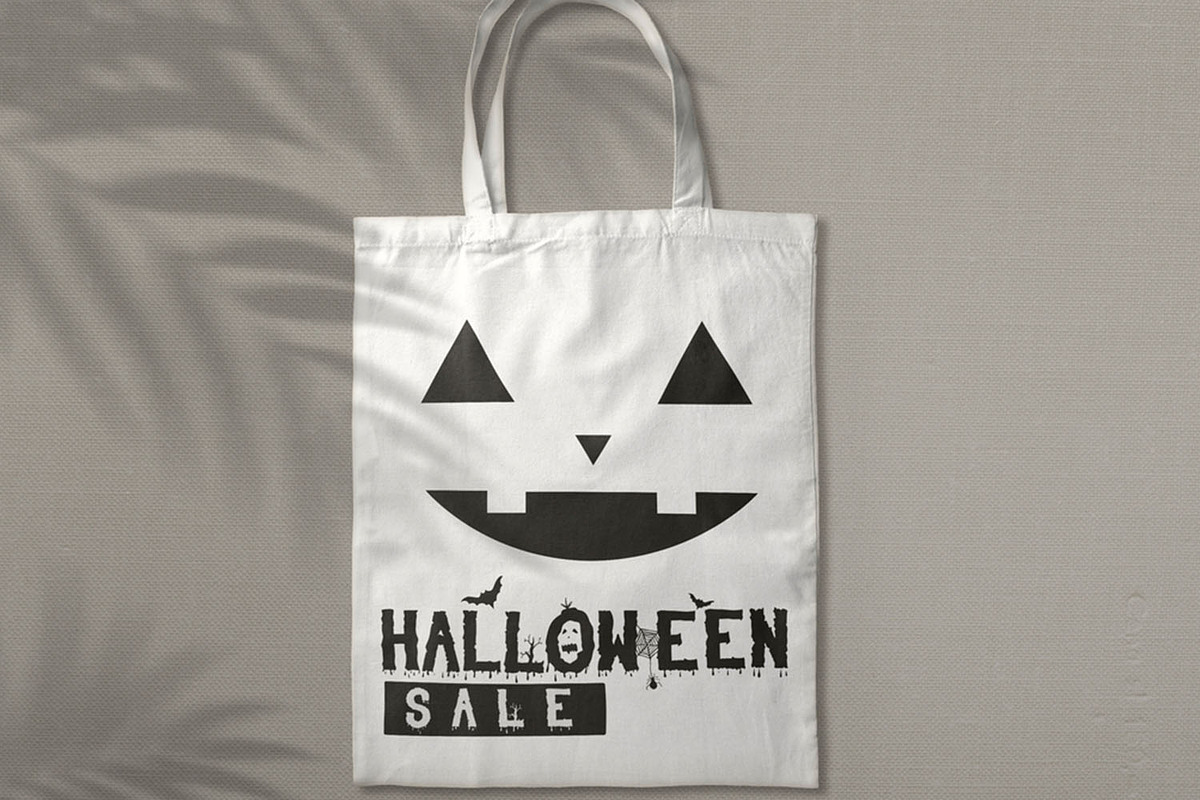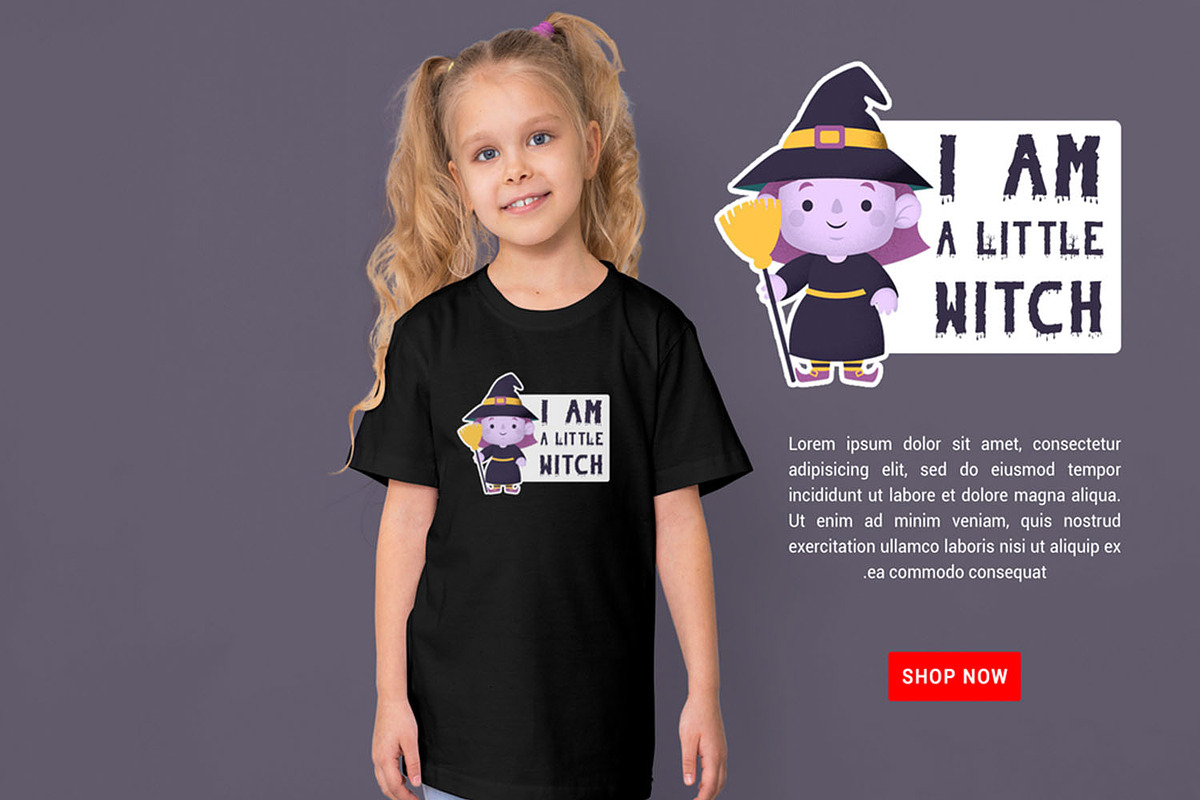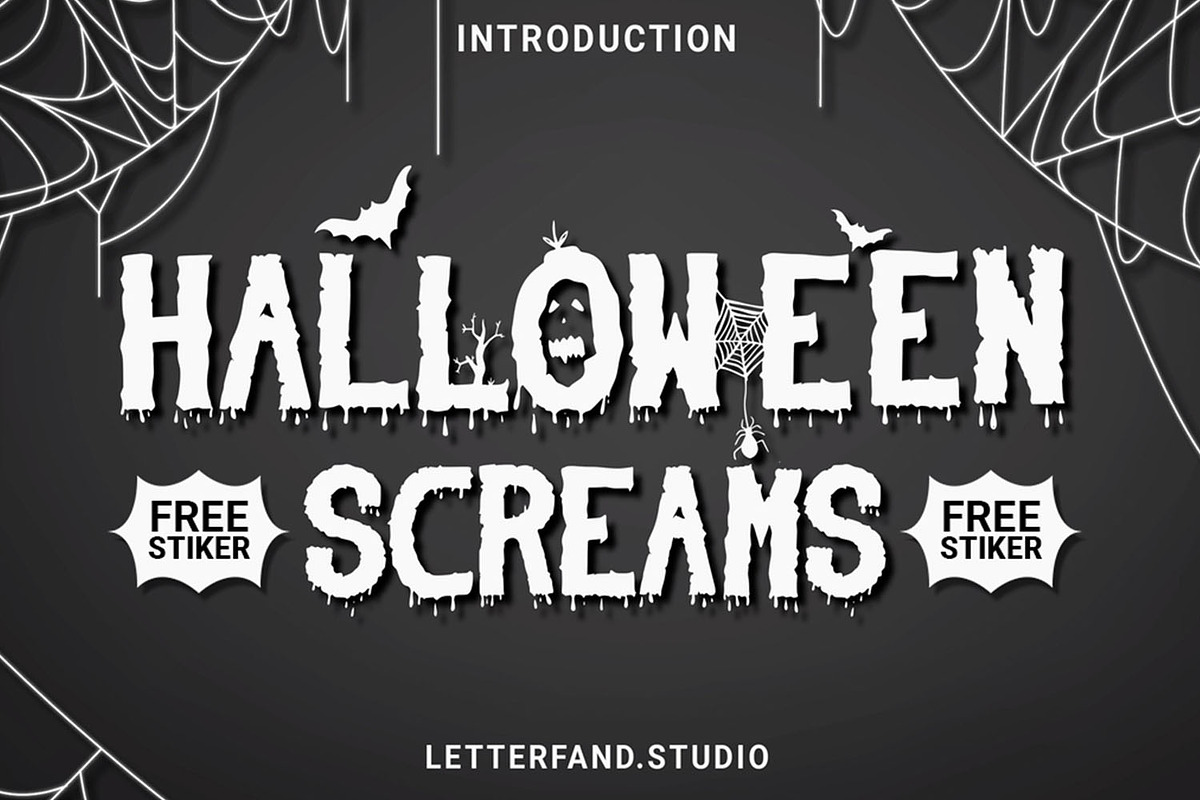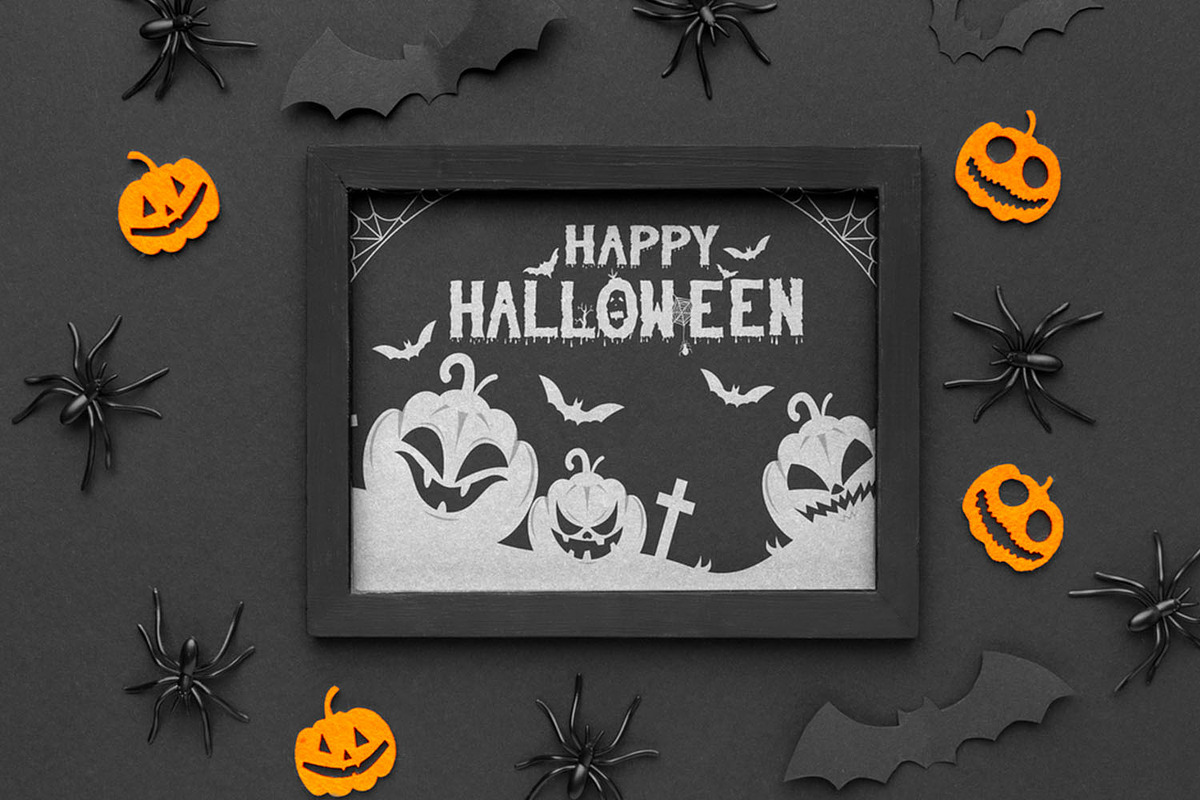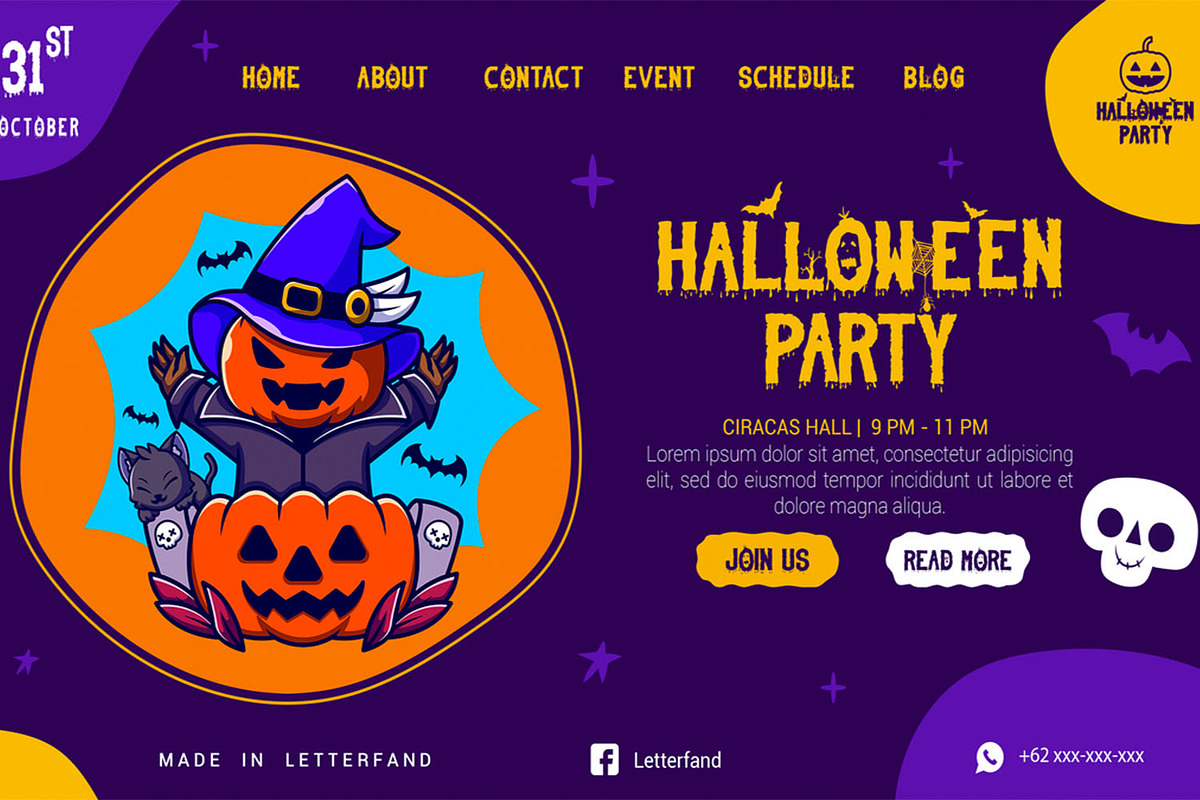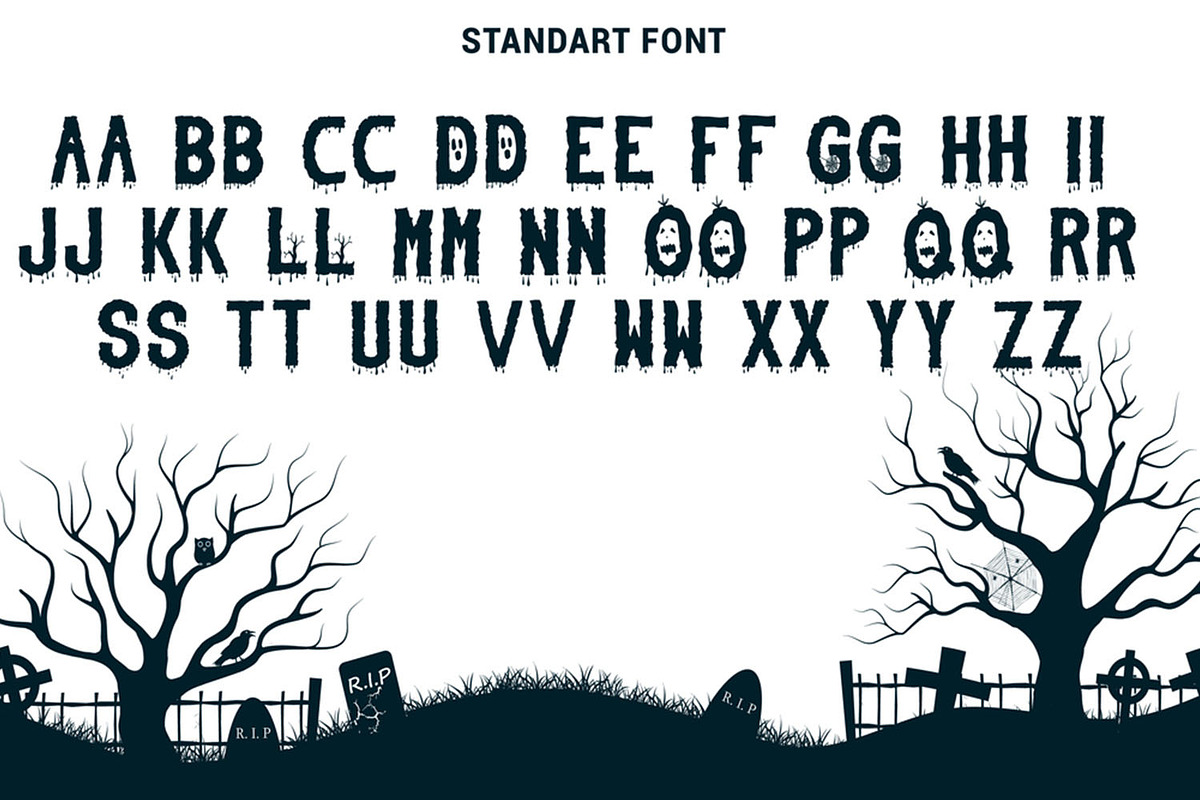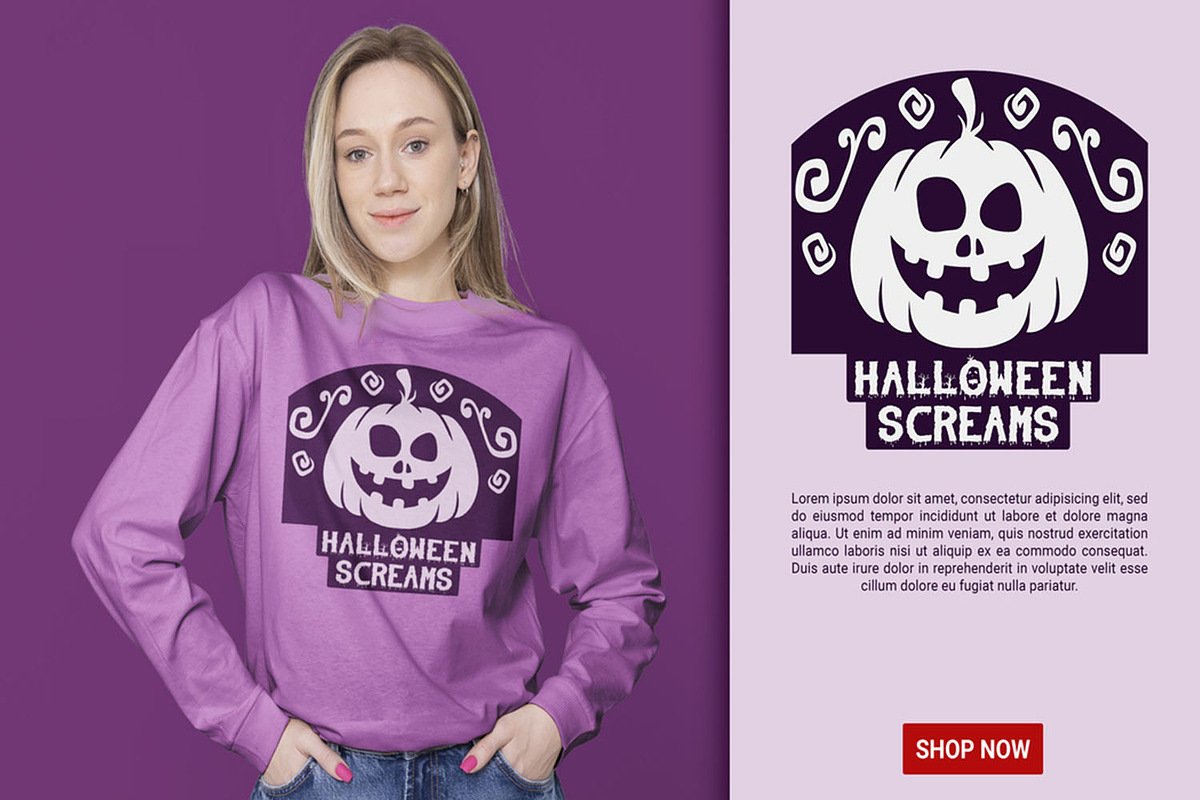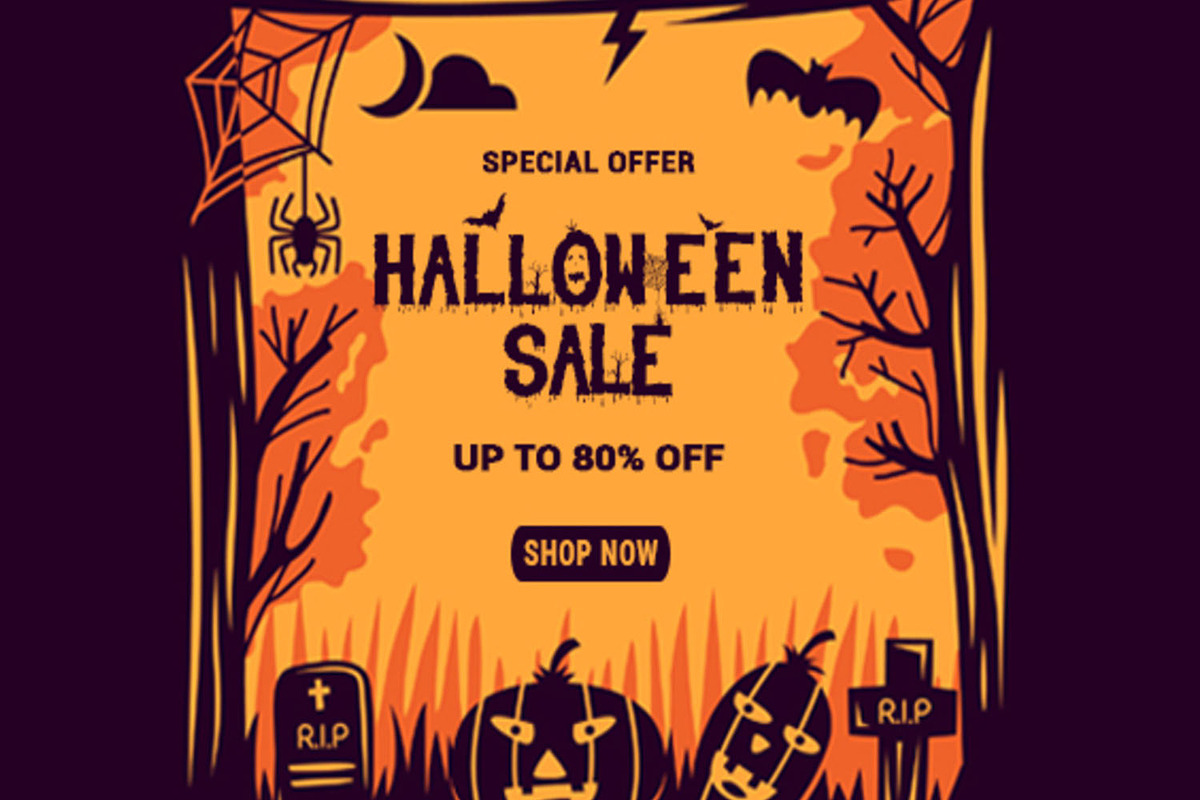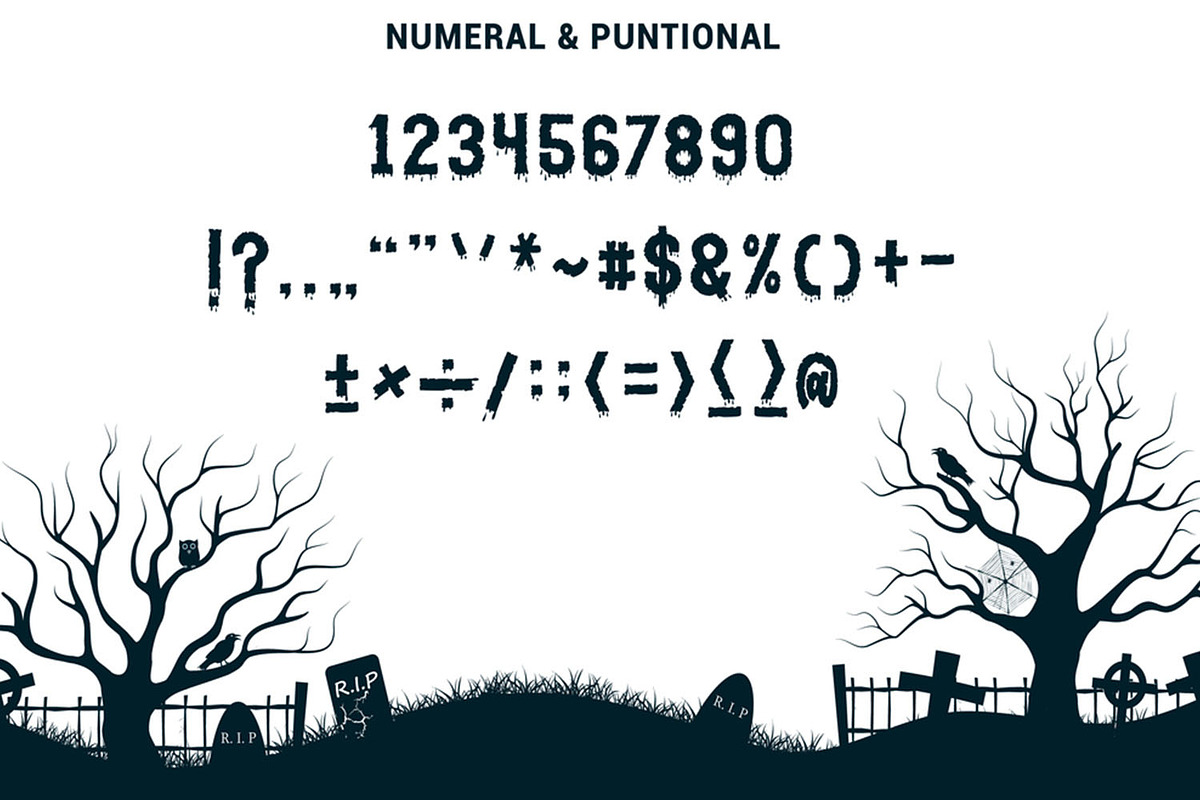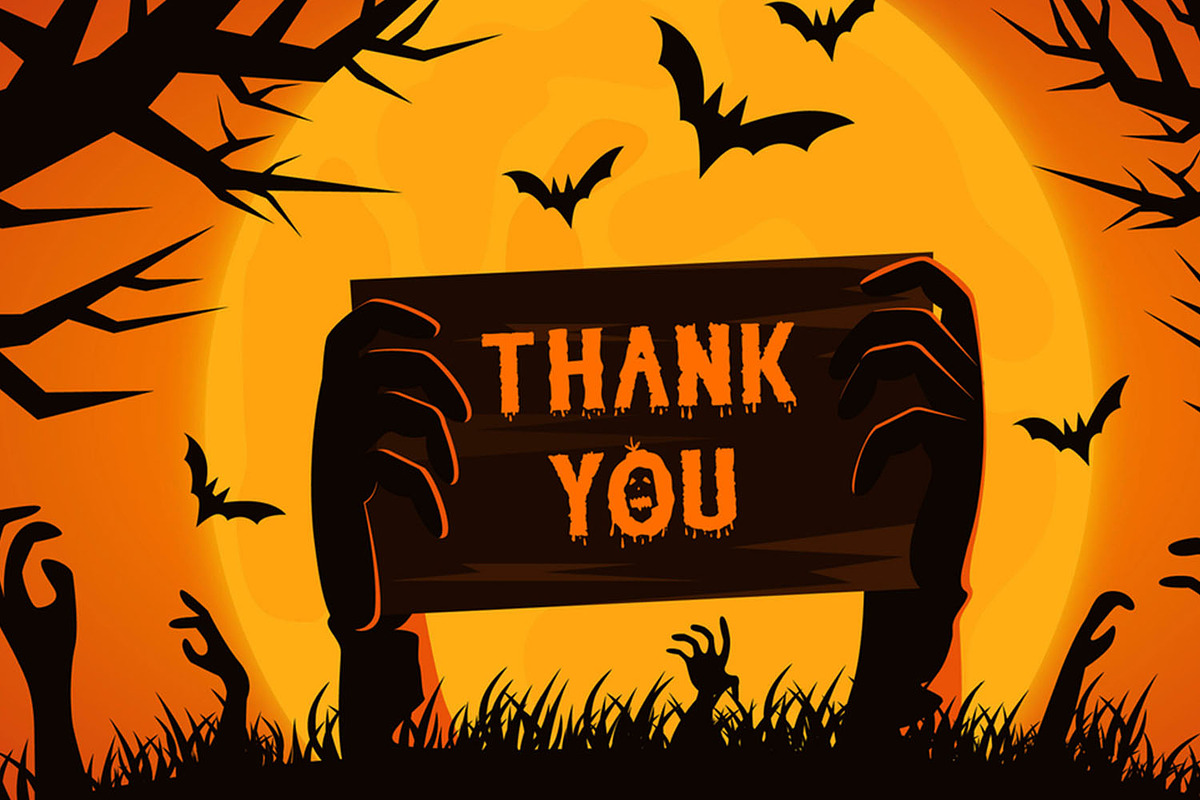
Scream Halloween
Scream Halloween Font is a thin handwritten font, made in a modern style and also a type of font that is trending among designers today, with a luxurious appearance that will make your designs attractive and look very suitable.
In addition, this Halloween Scream font is perfect for ad text, book covers, logos, mock ups, watermax, magazines, food designs, products, headers, coffee logos, brands, films, columns, videos, and imagination.